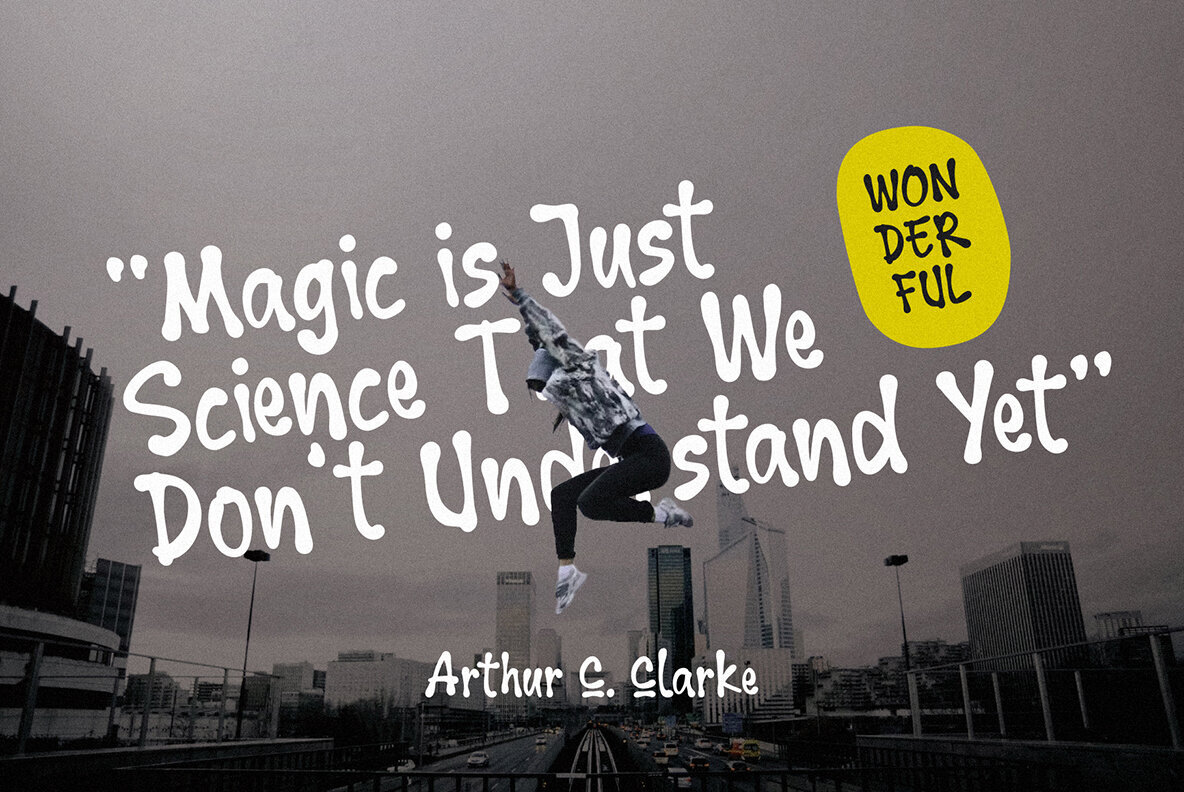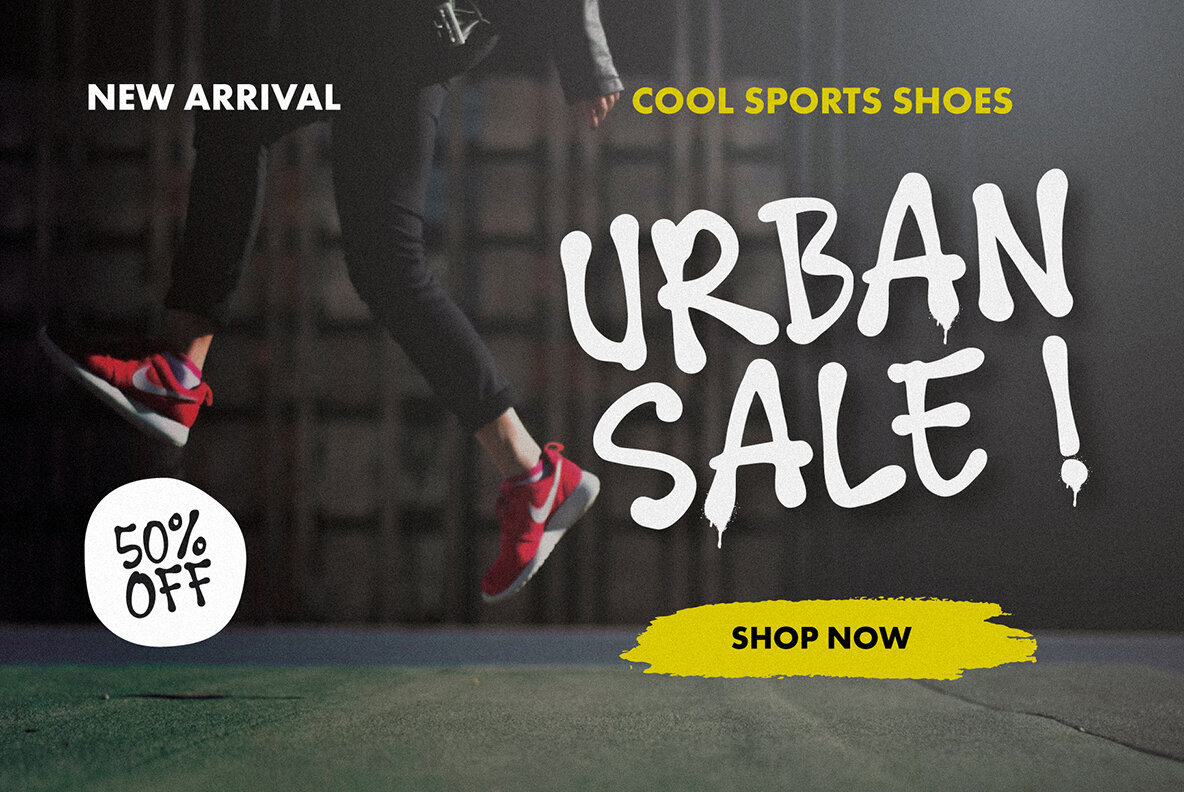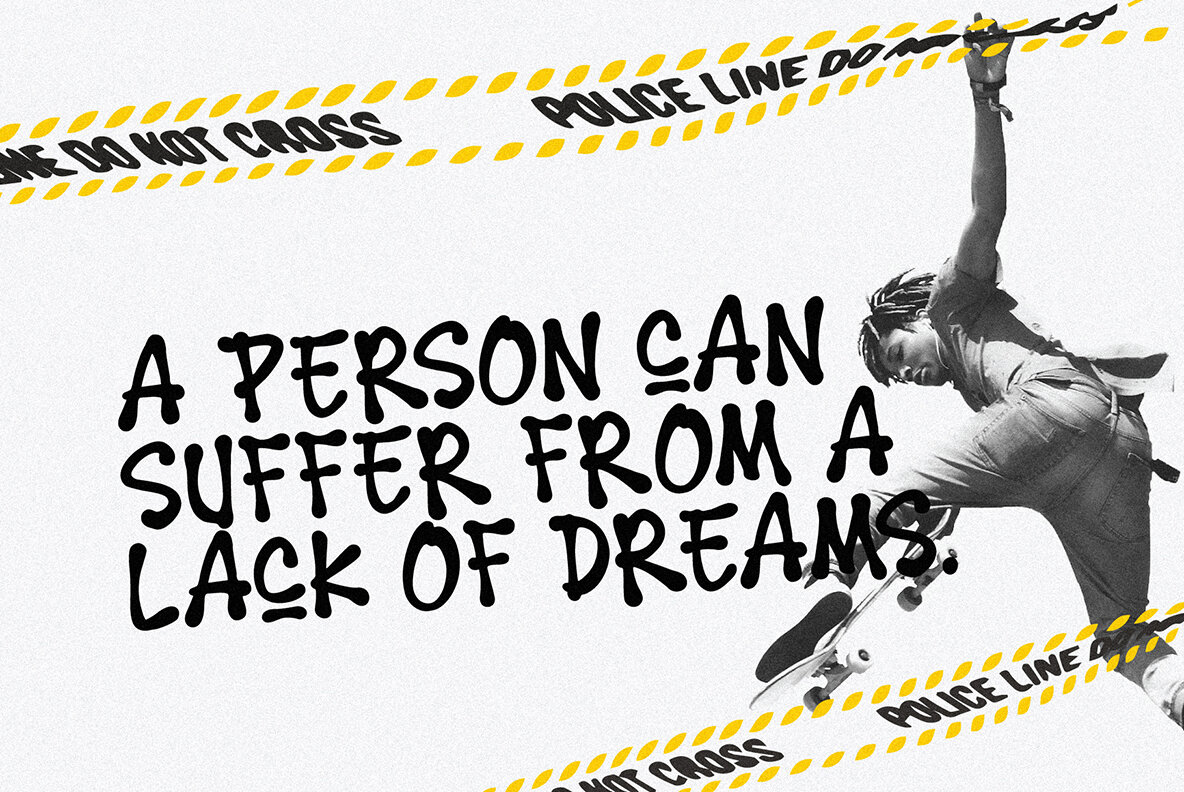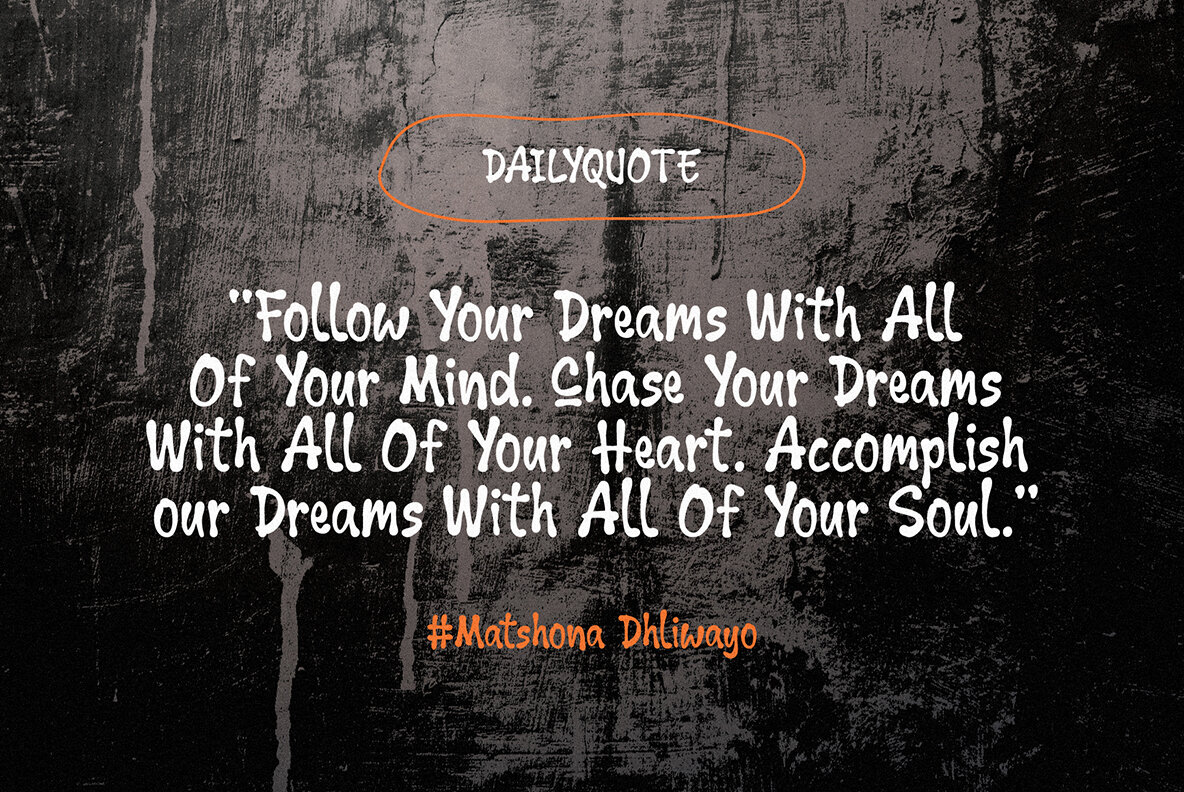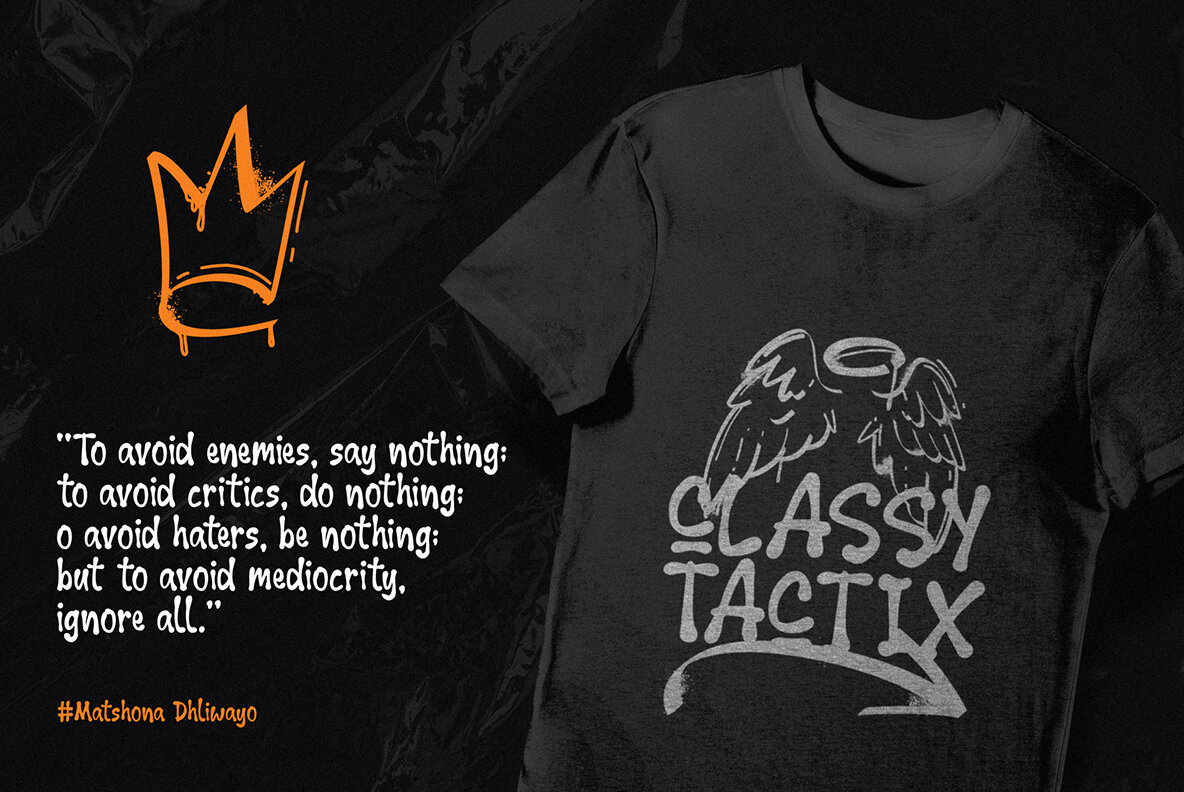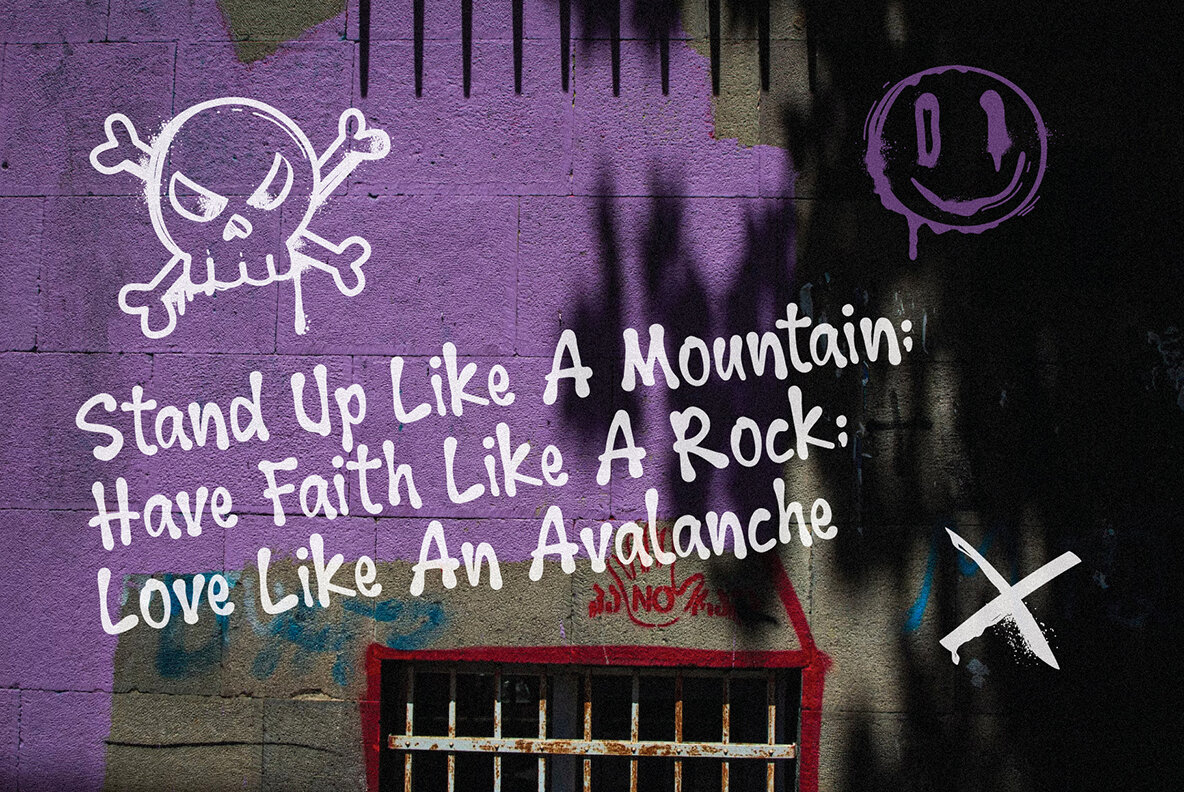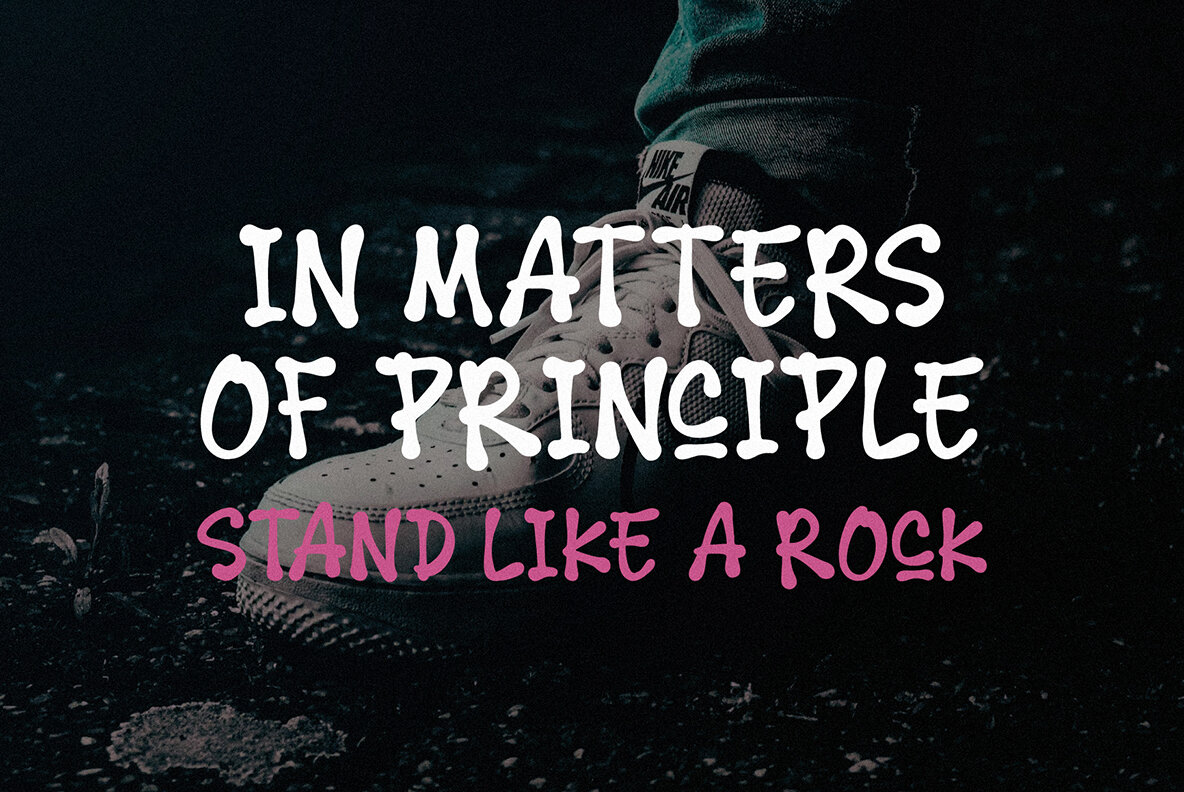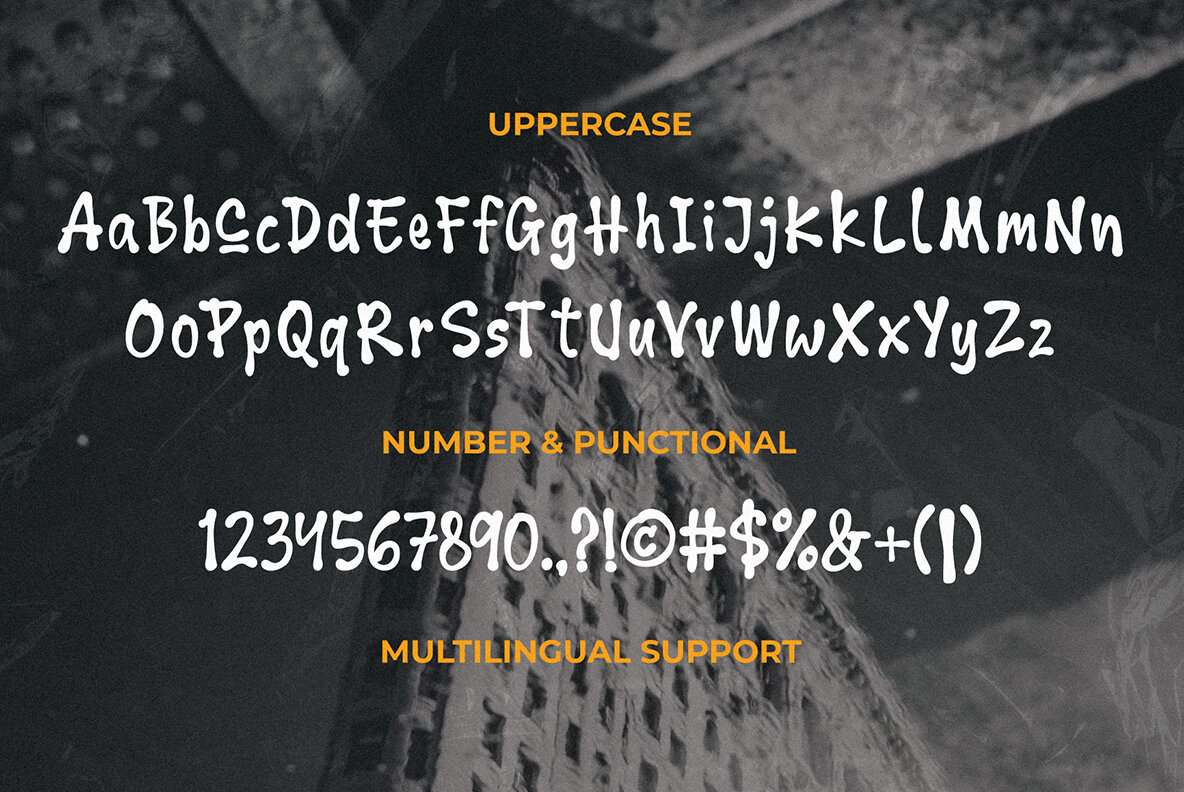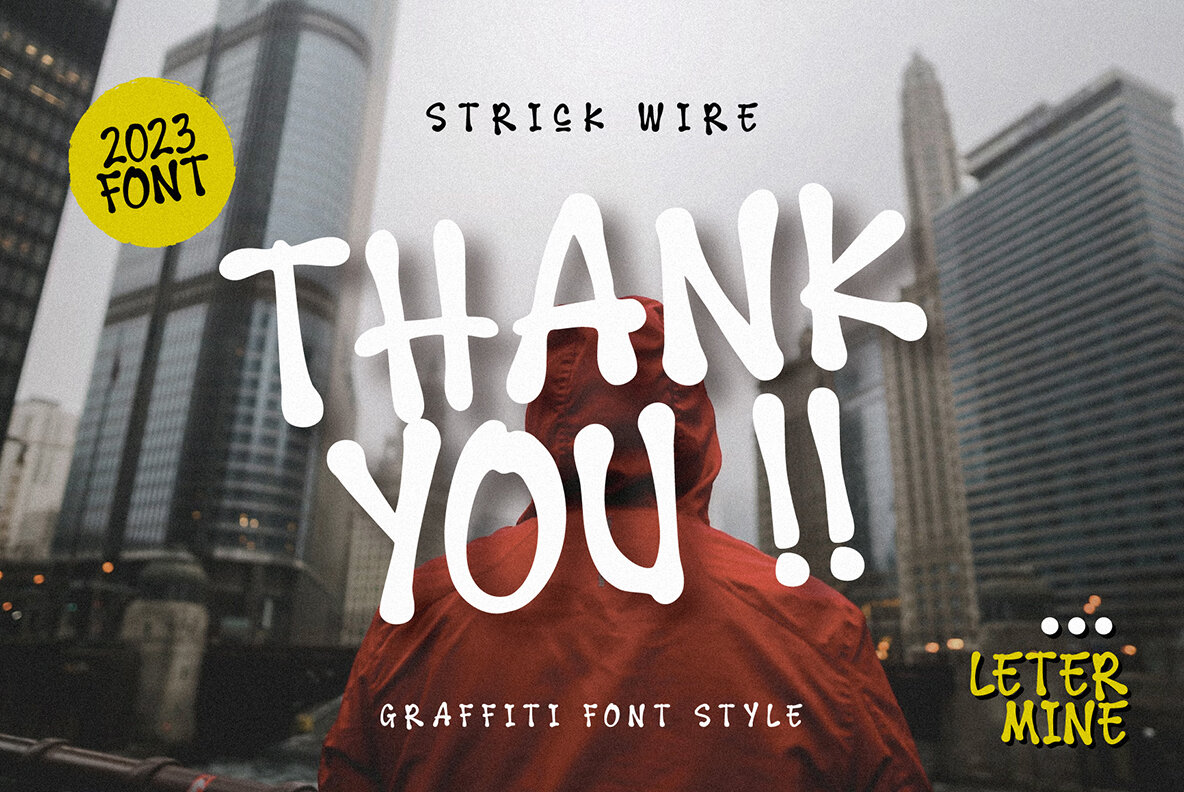
Strick Wire Font
STRICK WIRE Regular
Immerse your creative projects in the essence of urban street art with the striking "Strick Wire Graffiti Font." This font delivers the raw energy of graffiti, bringing a distinct urban vibe to your fingertips. Let your creativity thrive with the bold and edgy "Strick Wire Graffiti Font." Perfect for a variety of applications, this all-caps font energizes magazine layouts, promotional content, eye-catching posters, and merchandise designs. Infuse your projects with the authentic charm of street culture. "Strick Wire Graffiti Font" captures the rebellious spirit of graffiti, ensuring your designs stand out and leave a memorable impact. Break language barriers with the "Strick Wire Graffiti Font." Equipped with full multilingual support, it communicates your creative vision globally, whether for a local or international audience. "Strick Wire Graffiti Font" is more than a typeface; it's a bold statement, a narrative, and an attitude. Elevate your projects with this graffiti-inspired gem that promises to make a lasting impression.Strick Wire: Dynamic Graffiti-Inspired Typeface
Unleash Your Imagination
Urban Vibes Everywhere
Multilingual Mastery